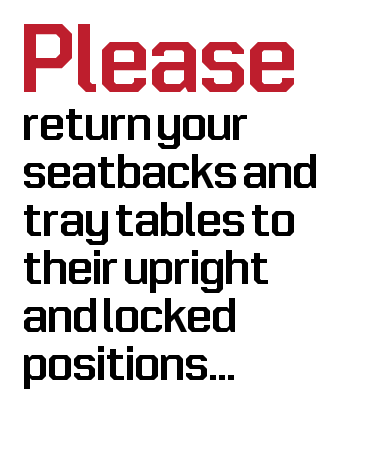
super clean and barely perfect. as if it was there forever...
This is really nice...should win a FS legibility award :)
An excellent addition to the structural sans genre begun with Skipper. This deserves a higher rating. If only users kept real-world functionality in mind when they voted.
@emepar7 & @Stewf: thanks for shining your light on this one. I realize it doesn't have that Fontstruct 'Wow' factor but if I build out the character set, I think it will have more real-world functionality. Fabrica is another nice one in the genre.
Simply stunning and very usable!